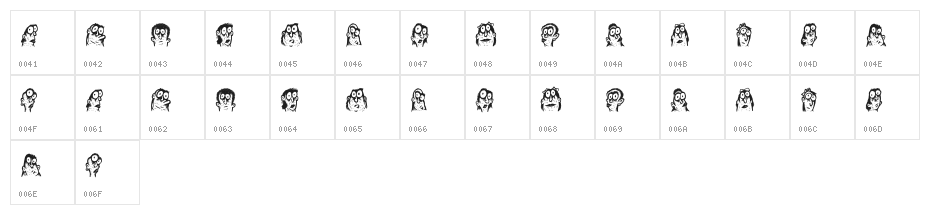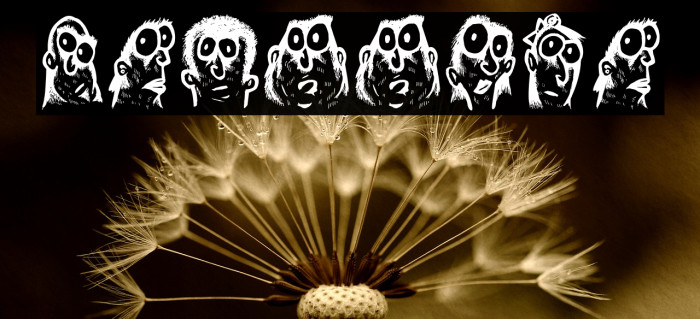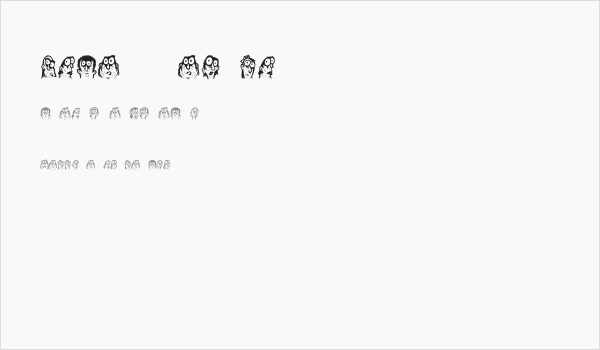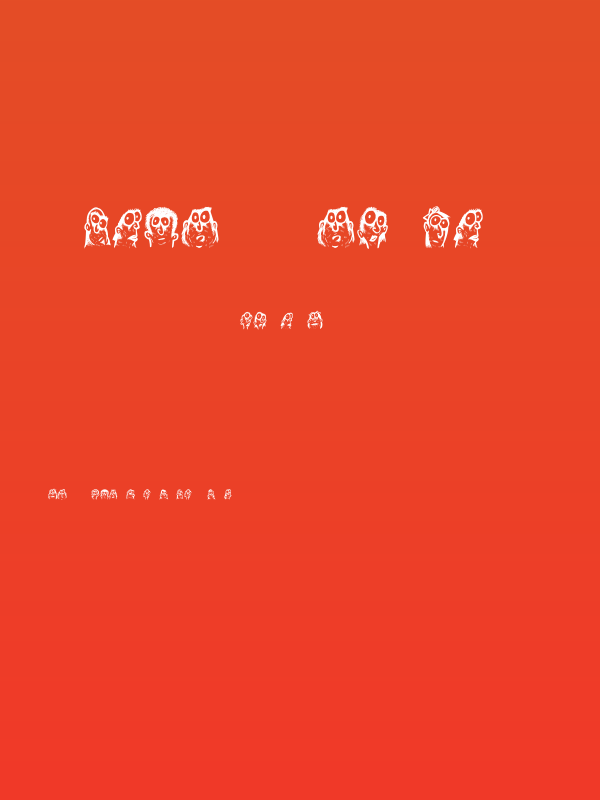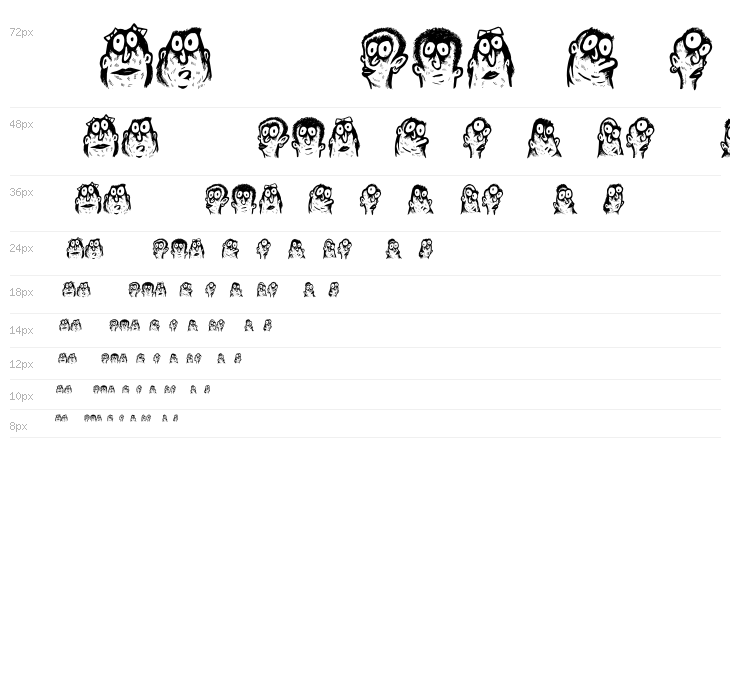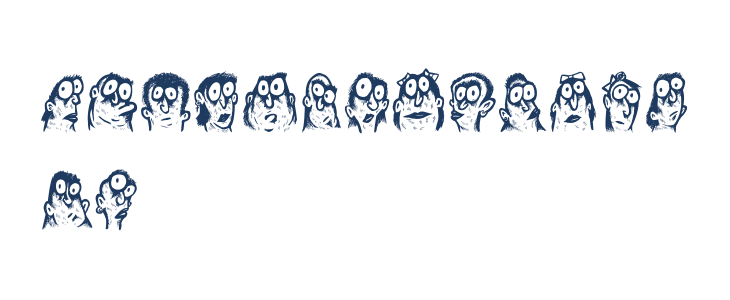
Faces Regular Font
Faces Regular Description
This unique and whimsical font features a series of expressive cartoon faces, each representing a different character. The playful design is characterized by exaggerated facial features, such as large eyes and quirky expressions, giving it a humorous and lively appearance. The font is highly decorative and unconventional, making it ideal for creative projects that require a touch of fun and personality. The characters are distinct and easily recognizable, though not suitable for body text due to their intricate design. This font is perfect for projects that aim to capture attention and convey a sense of humor or whimsy.
| Proposed Projects | Ideal for children's books, comic strips, playful posters, and creative branding. |